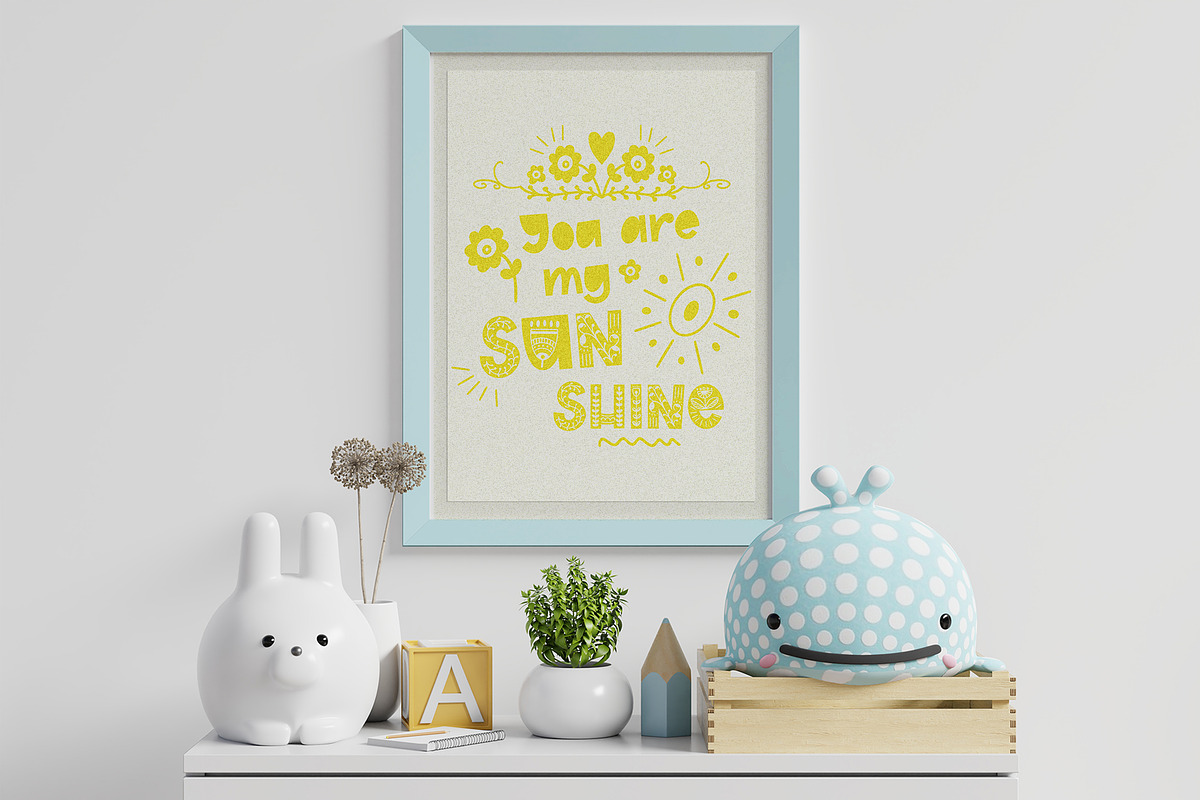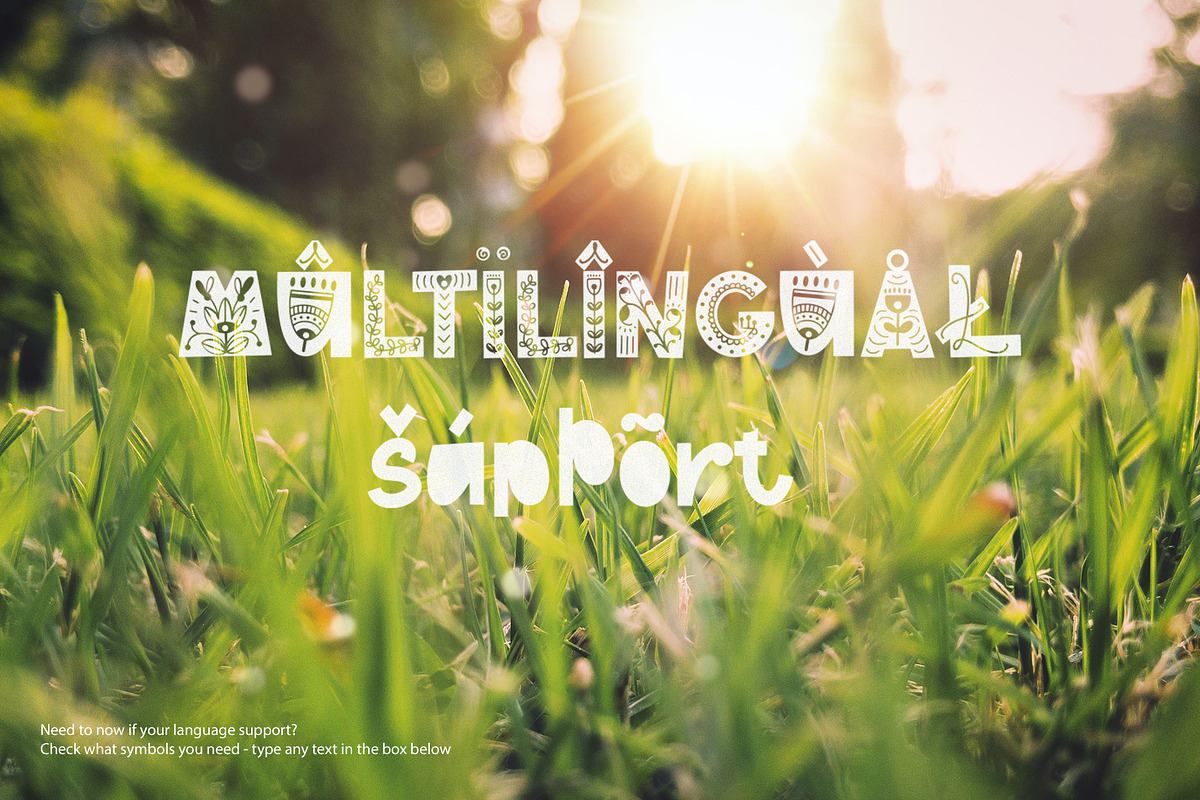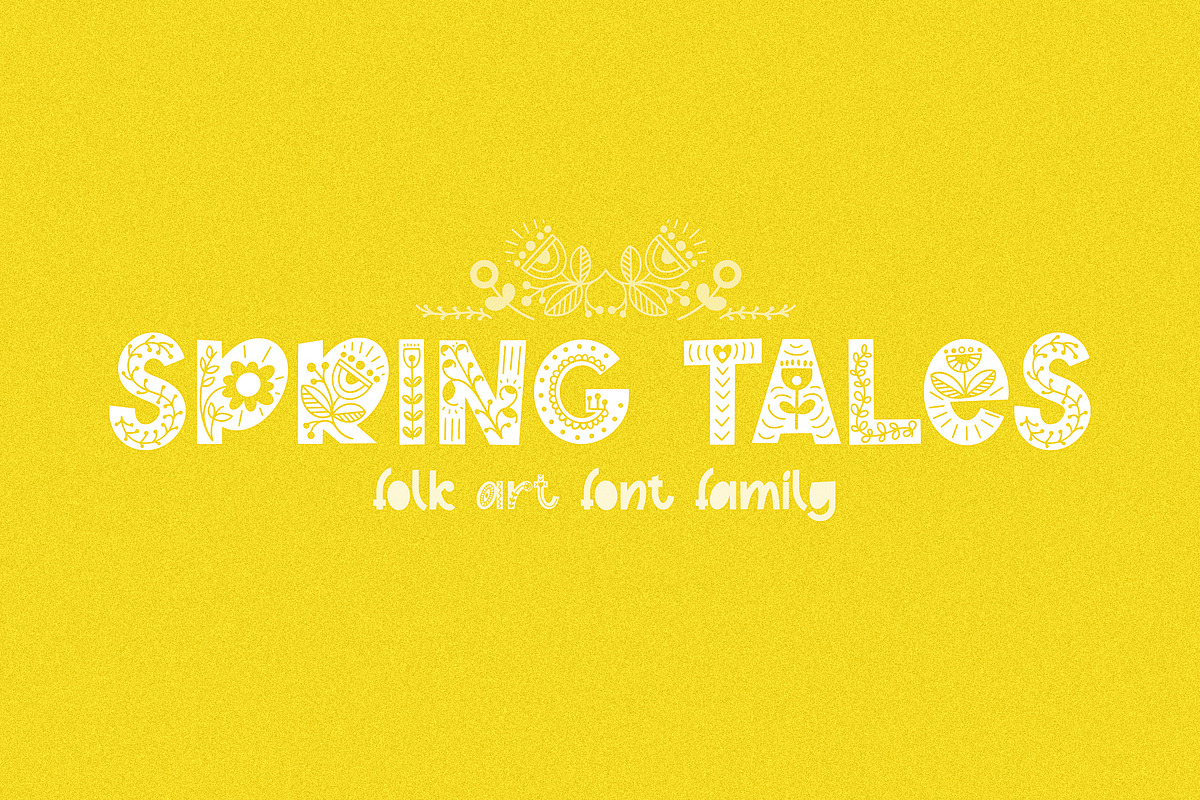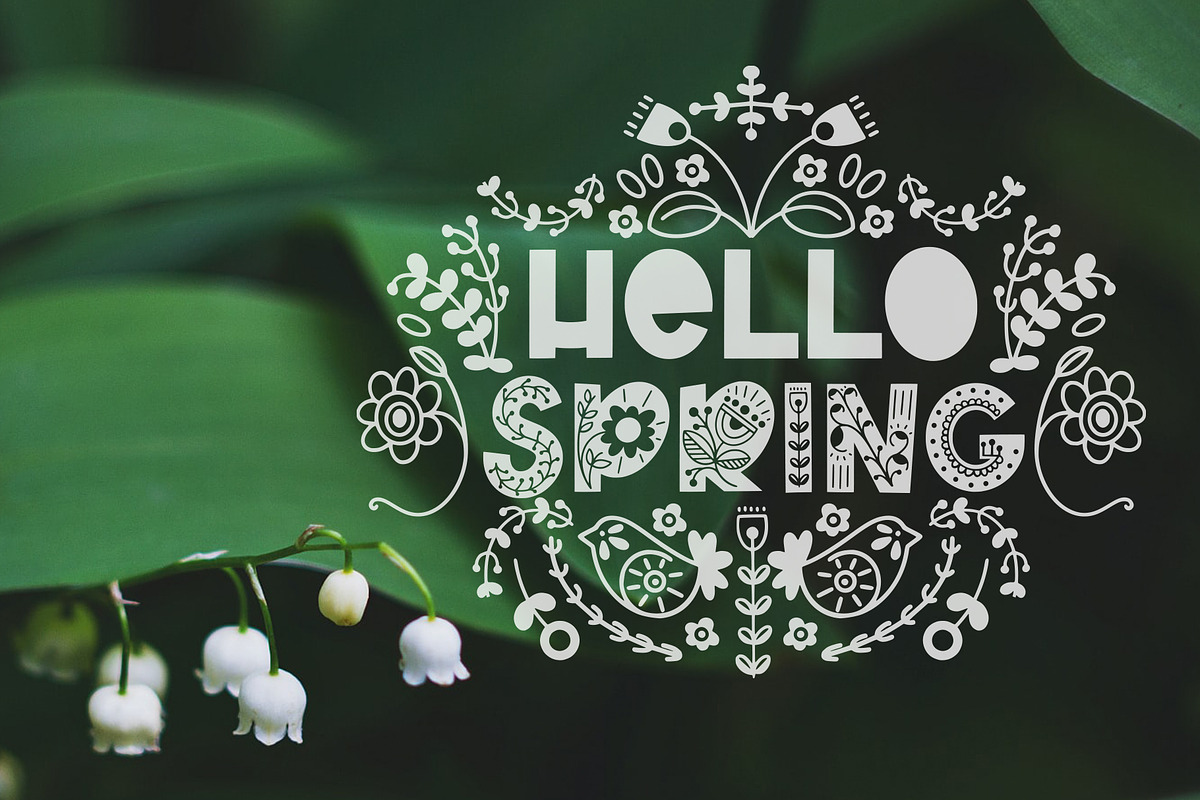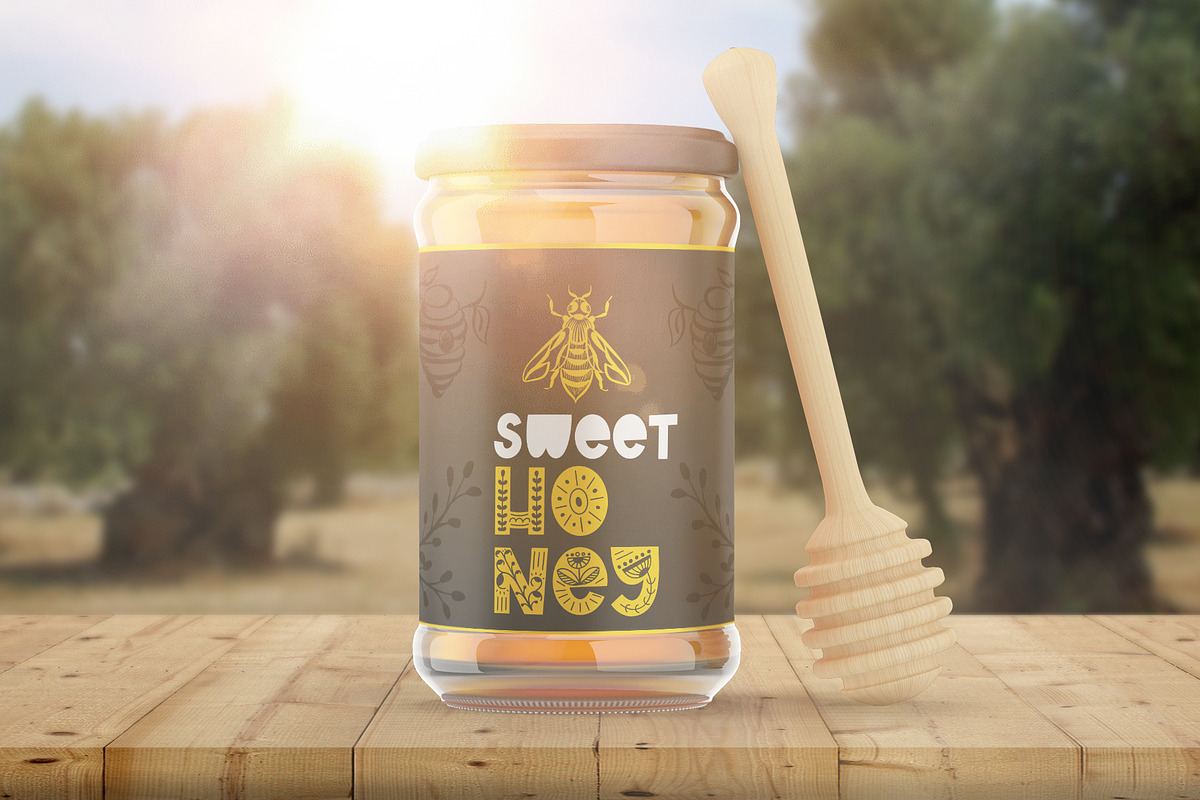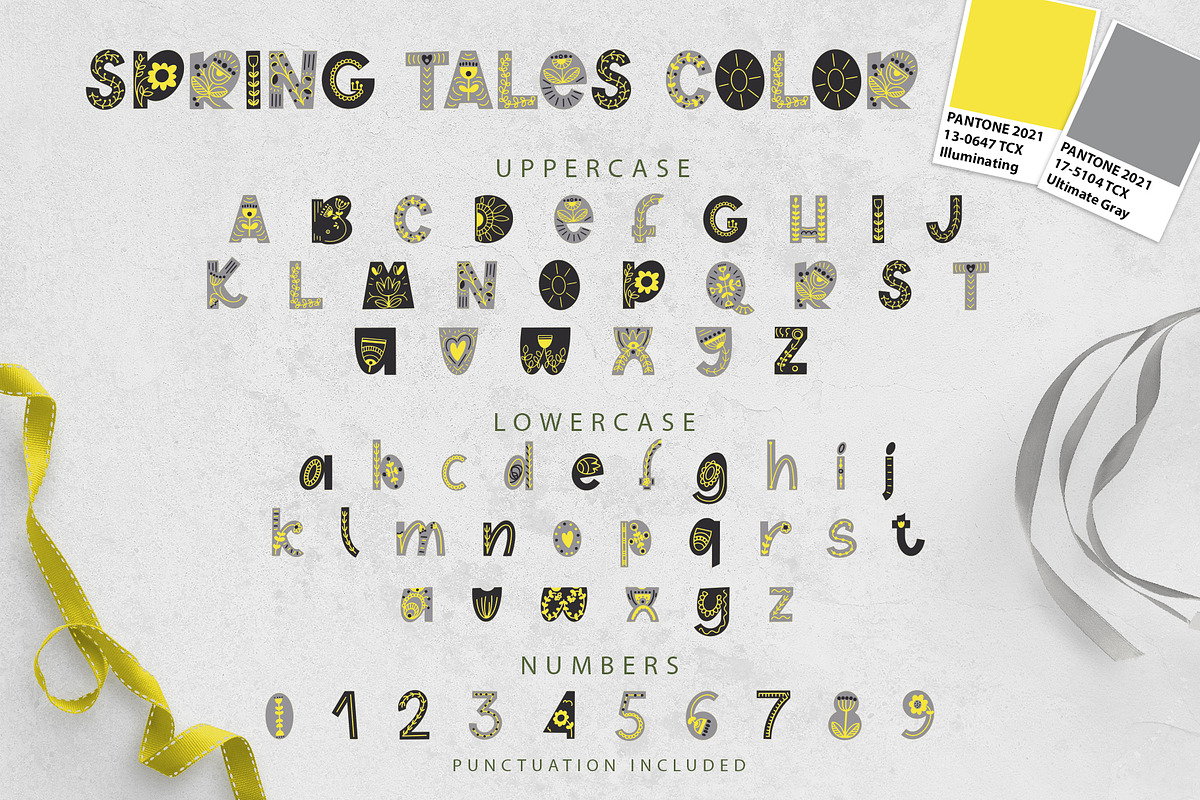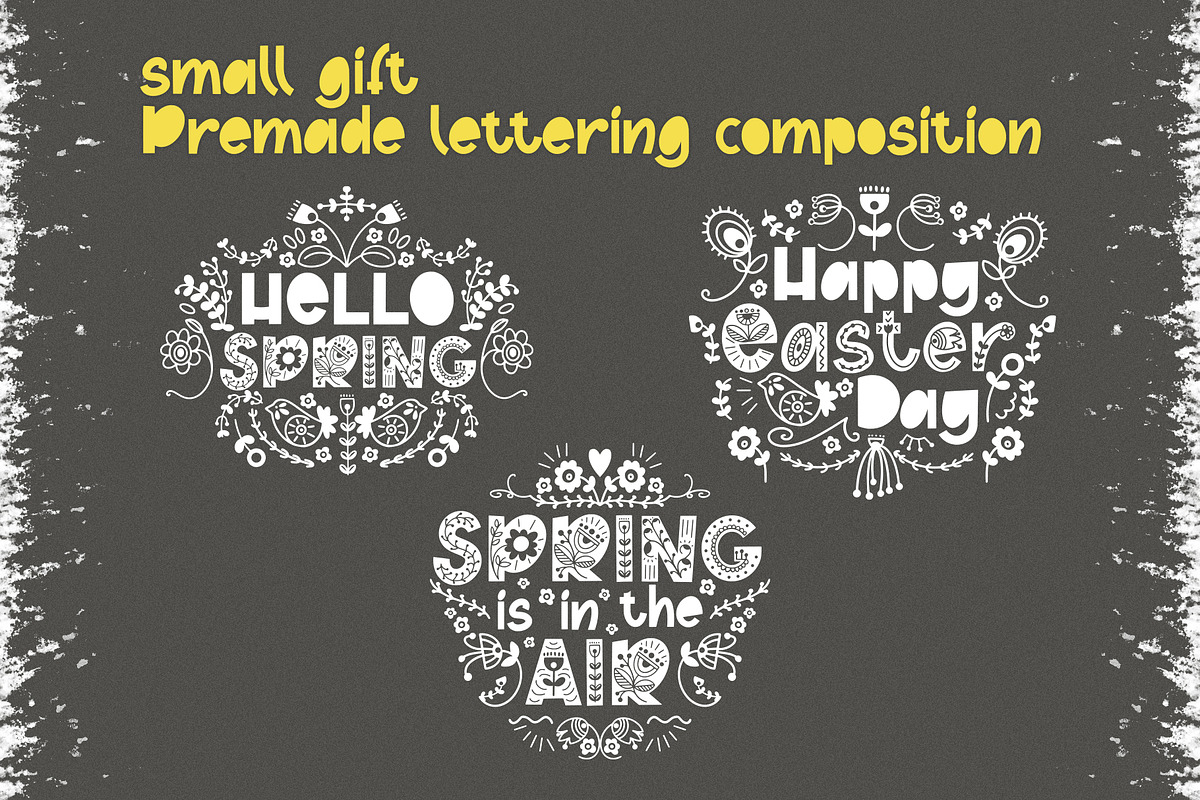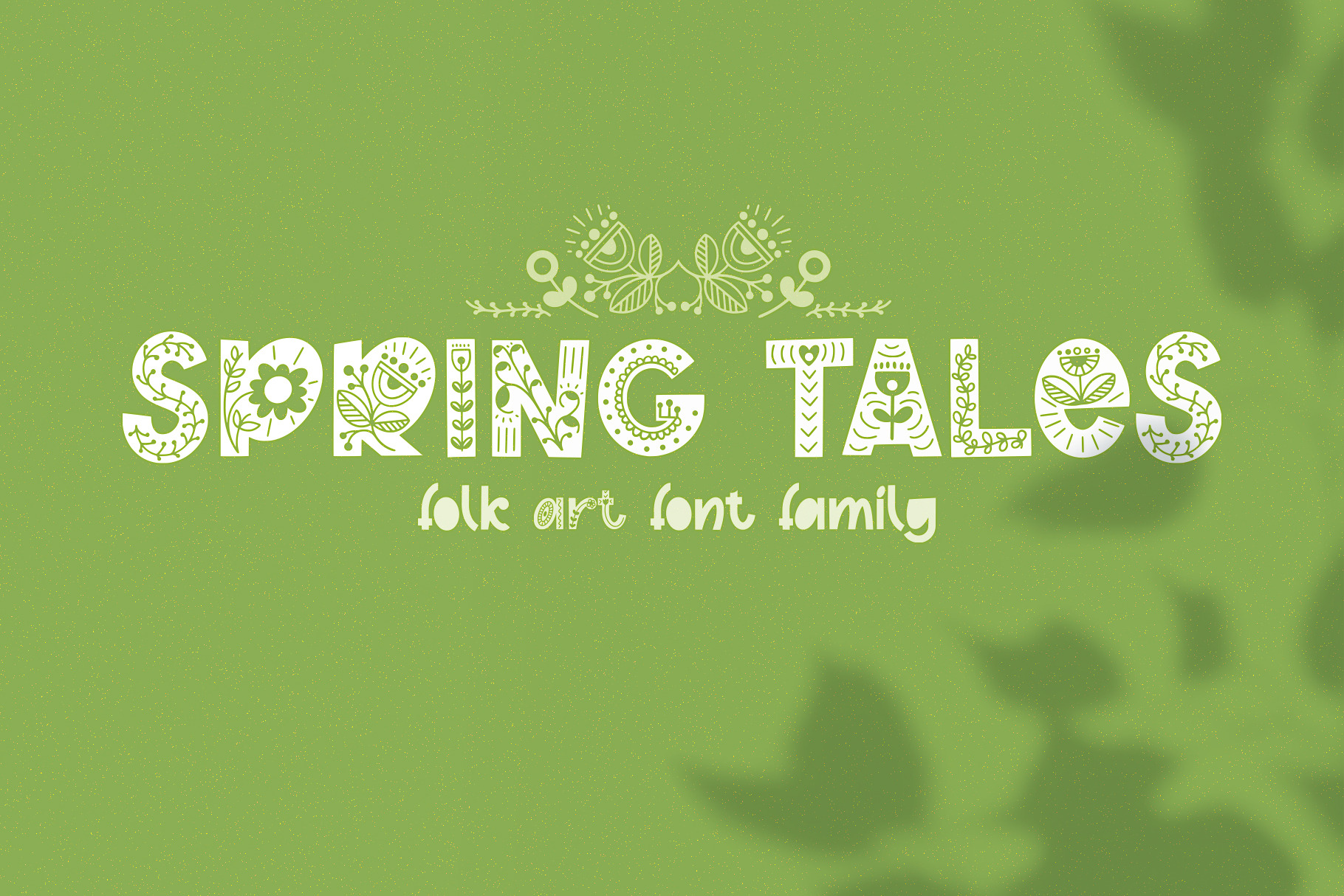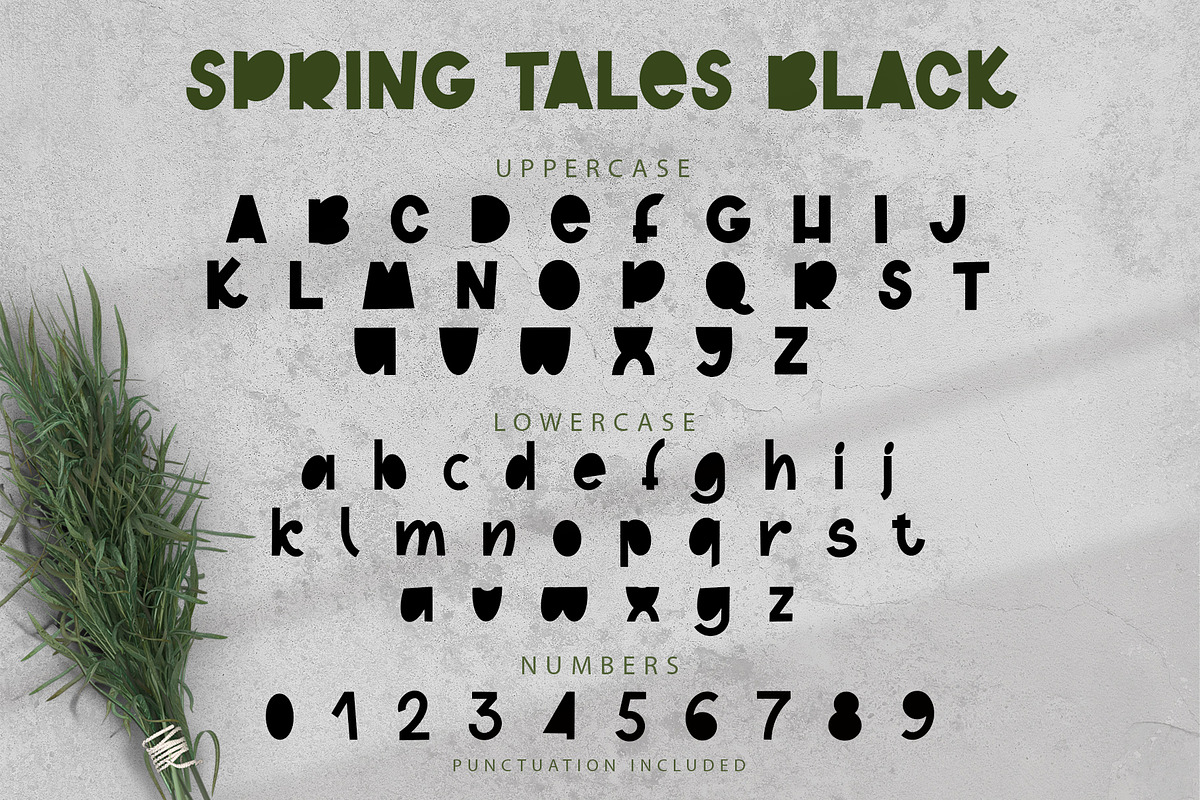
Spring Tales | Folk Art Font
Let me introduce my new product - Spring Tales folk art font. I was inspired to create this font by the motives of Scandinavian folklore. I wanted to transfer the Nordic aesthetics to the spring mood, when nature is just awakening from winter dream and everything is blooming around.
This font looks great on cloth prints and different packaging of craft product, you can use it to create beautiful lettering composition, posters, card. It look great like photo overlay. Or may be it will be fantastic cover of fairy tale book. Also each letter can be used as logo or monogram. It can be used in card decoration for example for Easter or 8 March.
- Spring Tales Font - decorative Uppercase & Lowercase, decorative Numerals & Punctuation;
- Spring Tales Black Font - blank Uppercase & Lowercase, blank Numerals & Punctuation;
- All fonts are multilingual.